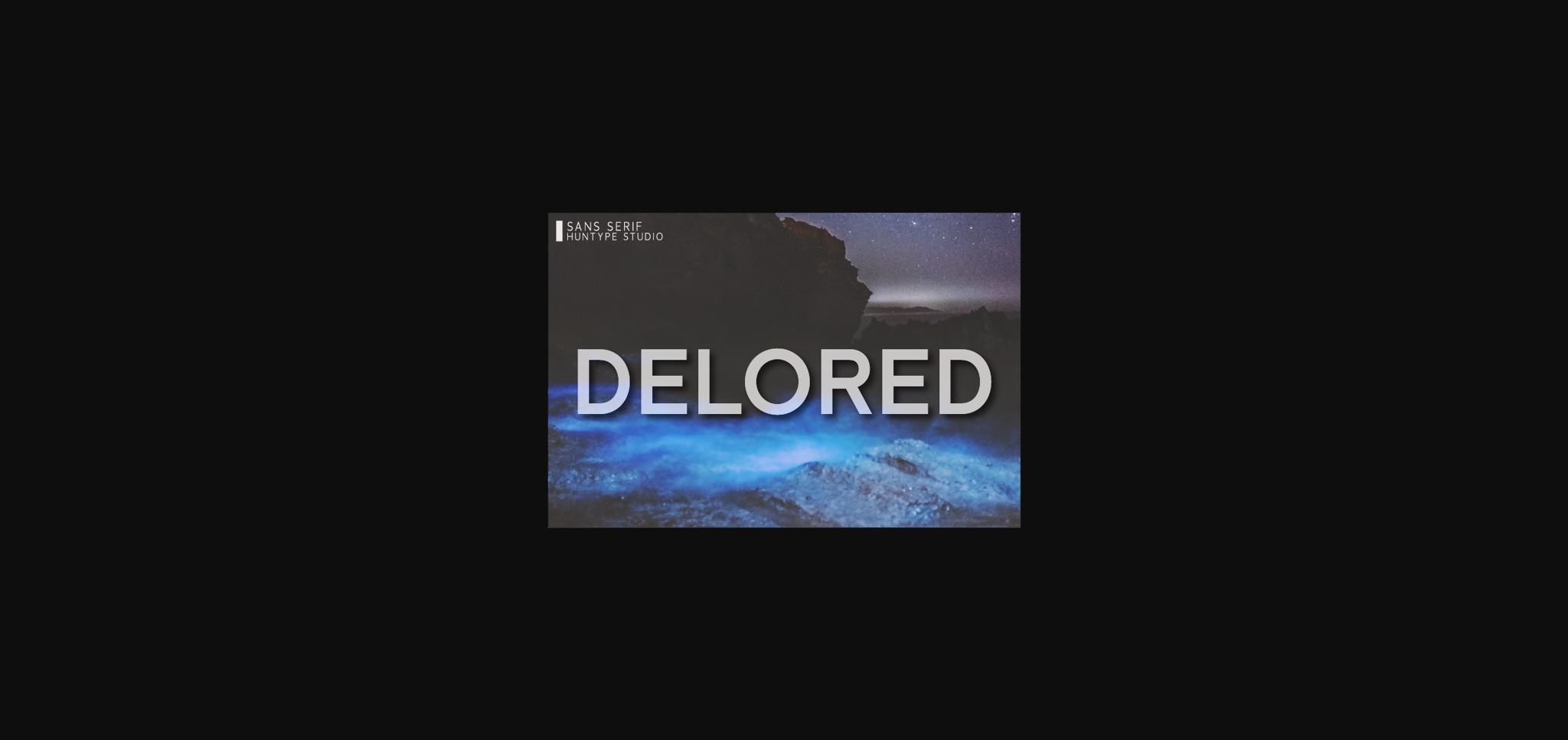
HomeSans Serif FontsDelored Font Sans Serif Fonts Delored Font FacebookXPinterestWhatsApp 1 of 4 ... Delored Font Poster 2... Delored Font Poster 3... Delored Font Poster 4... About Delored Font Delored is a modern and strong sans serif font. With its neat and beautiful arrangement of letters, this typeface will look outstanding in both formal and non-formal designs. DOWNLOAD NOW People also explored Chlorophyll Font Lightover Font Charger Cycle Font Toast Font Lemontea Squash Font Sanzibar Schreef Font Gojali Font My Kitchen Stuff Font 496 0 TagsDeloredDelored Font Previous articleAndrode FontNext articleVelezo Font LEAVE A REPLY Cancel reply Comment: Please enter your comment! Name:* Please enter your name here Email:* You have entered an incorrect email address! Please enter your email address here Website: Save my name, email, and website in this browser for the next time I comment. Personal Use Free Baby Magnolia Personal Use Free Read more about this font BD Pipe Personal Use Free Read more about this font Batik Classic Personal Use Free Read more about this font Foo Personal Use Free Read more about this font BLOG Free Fonts Risk: Why Free Fonts Can Be Dangerous for Designers Free Fonts Risk: Why Free Fonts Can Be Dangerous for Designers Using free fonts is a common practice in web and graphic design. However, the... Best Fonts for T-Shirt Design – Top 2025 Picks Best Fonts for YouTube Videos: Make Your Thumbnails Stand Out Elegant Wedding Invitation Fonts – Handwritten & Script Fonts